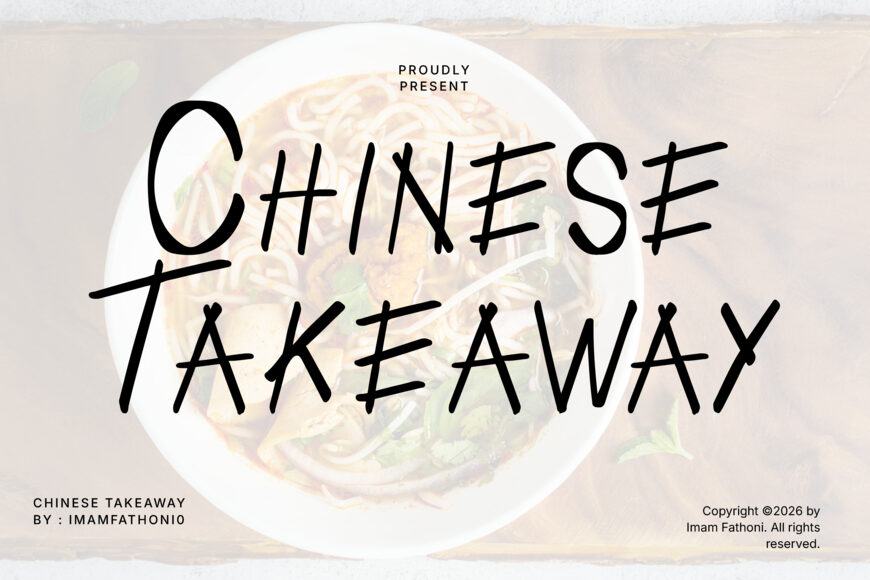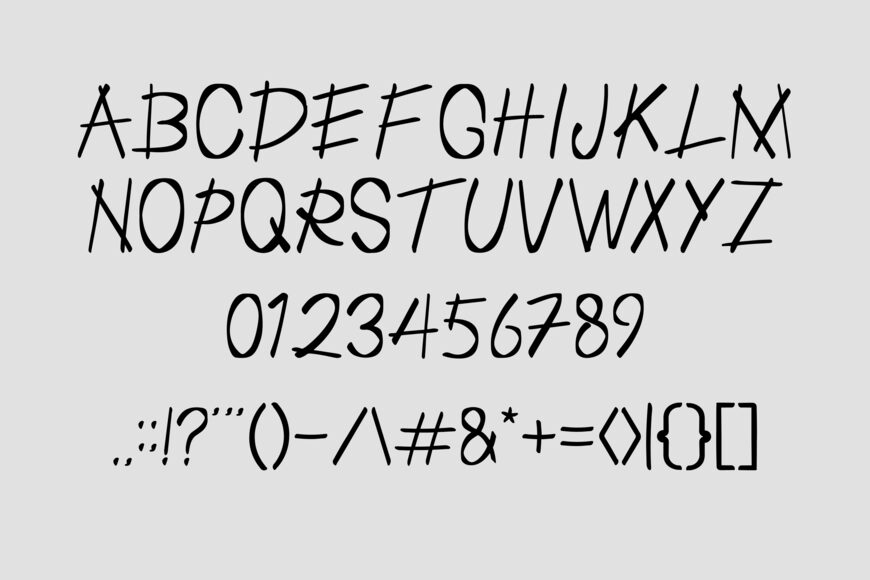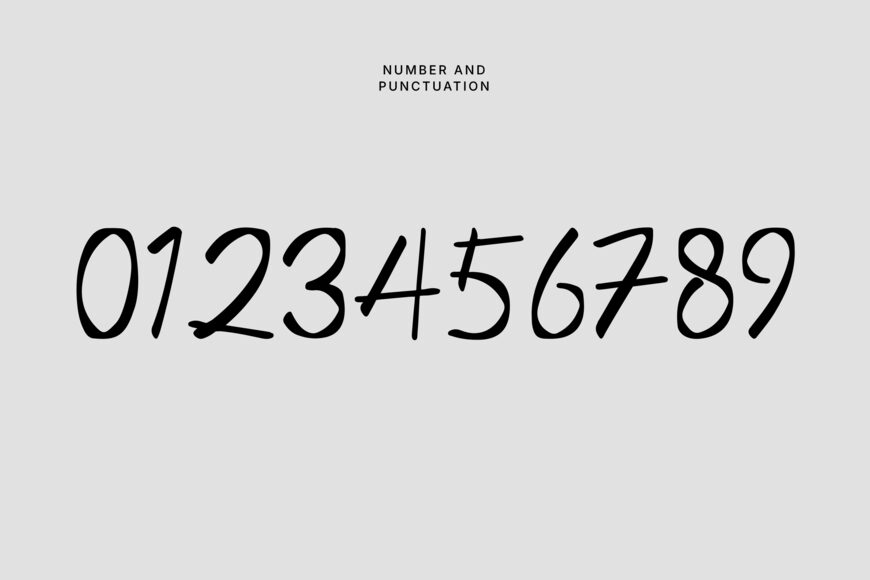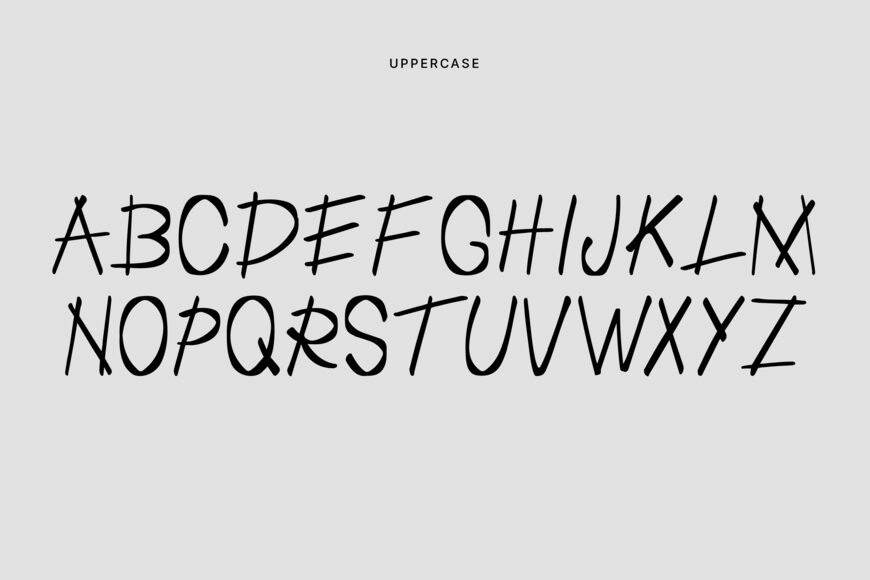
Chinese Takeaway is a handwritten font with an Asian restaurant style. Perfect for chinese restaurant menus, Asian food branding, takeaway packaging, food truck signage, noodle/dumpling shop logos, food blog headers, restaurant signage, delivery app branding, food festival posters, culinary social media graphics.